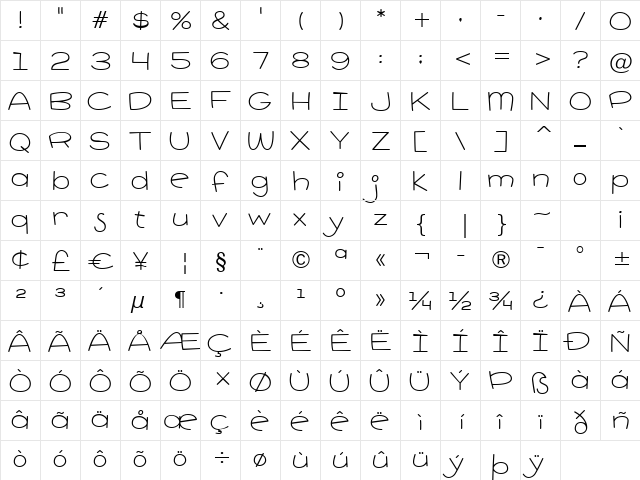
Pie Contest BTN Round Lt Regular Font Preview
Design Context for Pie Contest BTN Round Lt Typeface
Pie Contest BTN Round Lt uses gentle rounded endings to create a warm, inviting typographic personality — less corporate than geometric sans, more refined than playful display fonts. The delicate stroke weight brings airiness and refinement to layouts.
Well-suited to UI design, mobile interfaces, and any brand that wants approachability without sacrificing clarity.
Font Pairing: Pairs well with a rounded or humanist sans for body copy, maintaining the friendly tone without relying on Pie Contest BTN Round Lt to carry extended reading.
Pro Tip: Use Pie Contest BTN Round Lt for UI elements, app interfaces, and anywhere a friendly, approachable tone needs to be maintained without sacrificing clarity.